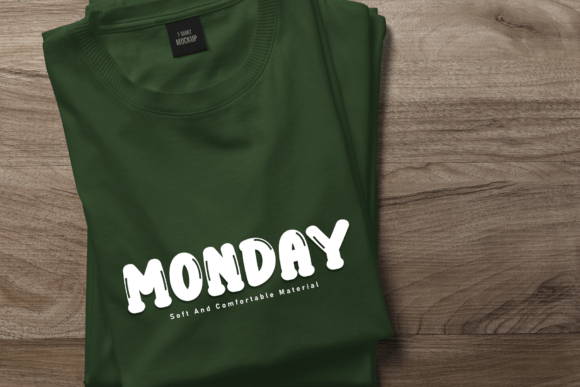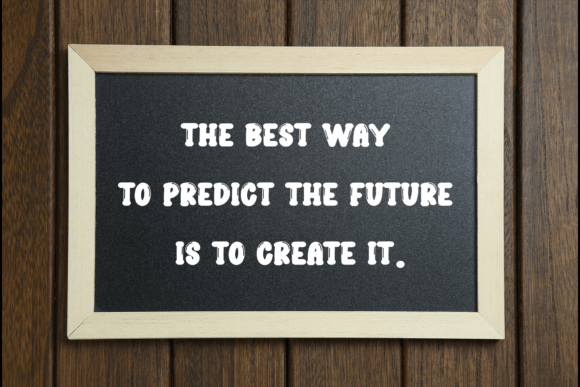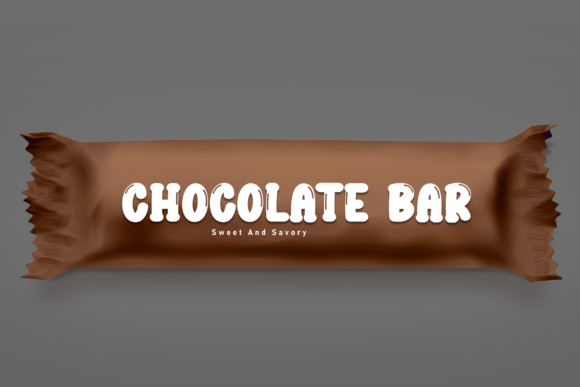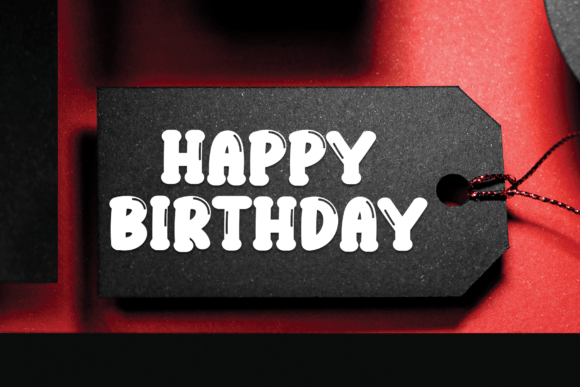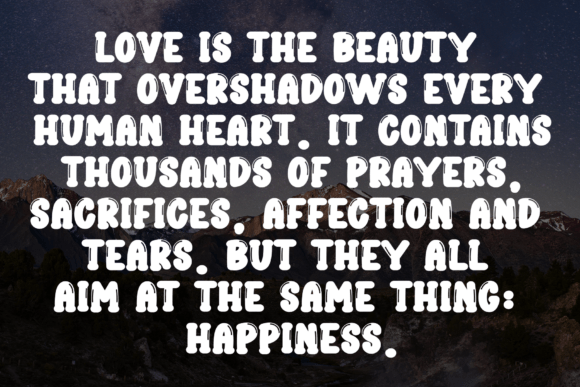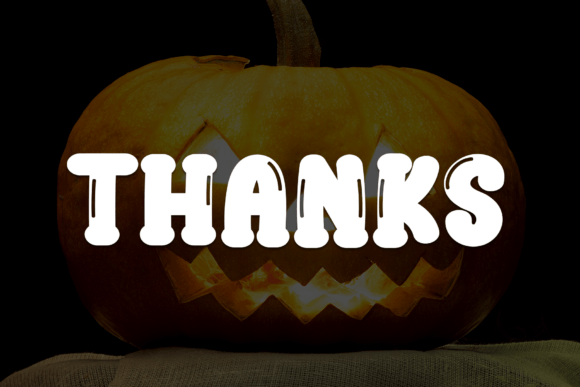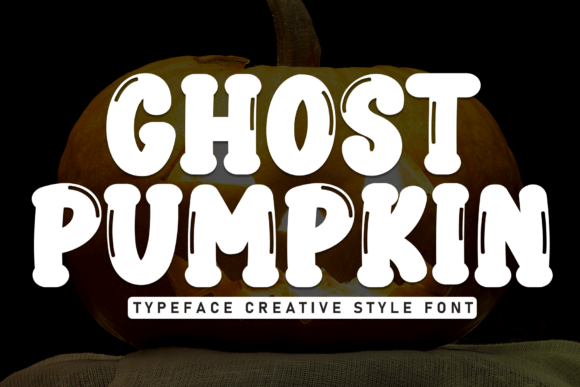
Introducing Ghost Pumpkin Font: The Perfect Addition to Your Design Projects
Are you looking for a font that can add a touch of whimsy and charm to your designs? Look no further than the Ghost Pumpkin Font. This cute and charming display font is perfect for designers and crafters who want to add a bit of personality to their projects. In this article, we’ll take a closer look at the Ghost Pumpkin Font, its features, and how you can use it to elevate your designs.
What is Ghost Pumpkin Font?
Ghost Pumpkin Font is a display font that is designed to add a touch of whimsy and charm to your designs. It’s a cute and charming font that’s perfect for creating eye-catching headings, titles, and text. The font is whimsical and a bit quirky, making it perfect for designers and crafters who want to add a bit of personality to their projects.
Key Features of Ghost Pumpkin Font
The Ghost Pumpkin Font has several key features that make it a great addition to your design projects. Some of its key features include:
- Cute and charming design: The Ghost Pumpkin Font has a unique and charming design that’s perfect for creating eye-catching headings and titles.
- Whimsical and quirky: The font has a whimsical and quirky feel that’s perfect for designers and crafters who want to add a bit of personality to their projects.
- Easy to read: Despite its unique design, the Ghost Pumpkin Font is easy to read, making it perfect for use in headings, titles, and text.
- Versatile: The font is versatile and can be used in a variety of design projects, from craft projects to digital designs.
How to Use Ghost Pumpkin Font in Your Design Projects
The Ghost Pumpkin Font is easy to use in your design projects. Here are a few ways you can use it:
- Headings and titles: Use the Ghost Pumpkin Font to create eye-catching headings and titles that will grab the attention of your audience.
- Craft projects: The font is perfect for use in craft projects, such as scrapbooking, card making, and other paper crafts.
- Digital designs: The font can also be used in digital designs, such as social media graphics, blog posts, and website headers.
- Signs and posters: Use the Ghost Pumpkin Font to create eye-catching signs and posters that will grab the attention of your audience.
Why Choose Ghost Pumpkin Font?
There are many reasons why you should choose the Ghost Pumpkin Font for your design projects. Here are a few:
- Unique design: The Ghost Pumpkin Font has a unique and charming design that’s sure to set your designs apart from the rest.
- Versatile: The font is versatile and can be used in a variety of design projects.
- High-quality: The font is high-quality and is designed to look great in any design project.
Tips for Using Ghost Pumpkin Font
Here are a few tips for using the Ghost Pumpkin Font in your design projects:
- Use it sparingly: While the Ghost Pumpkin Font is cute and charming, it can be overwhelming if used too much. Use it sparingly to create a focal point in your design.
- Pair it with other fonts: The Ghost Pumpkin Font pairs well with other fonts, such as sans serif fonts and script fonts. Experiment with different pairings to find the one that works best for your design.
- Experiment with colors: The Ghost Pumpkin Font looks great in a variety of colors. Experiment with different colors to find the one that works best for your design.
The Ghost Pumpkin Font is a cute and charming display font that’s perfect for designers and crafters who want to add a bit of personality to their projects. With its unique design, ease of use, and versatility, it’s a great addition to any design project. Whether you’re creating headings and titles, craft projects, or digital designs, the Ghost Pumpkin Font is sure to brighten up your designs and add a touch of whimsy and charm. So why wait? Download the Ghost Pumpkin Font today and start creating amazing designs!